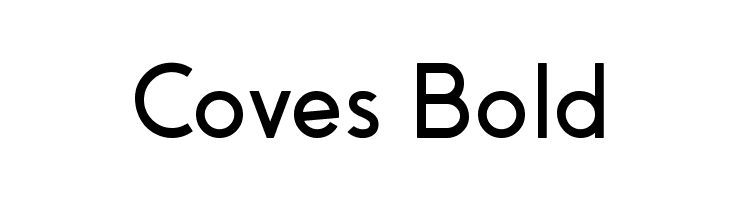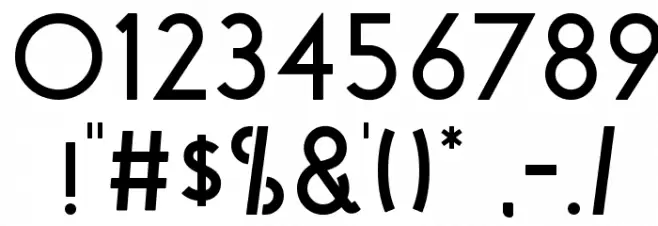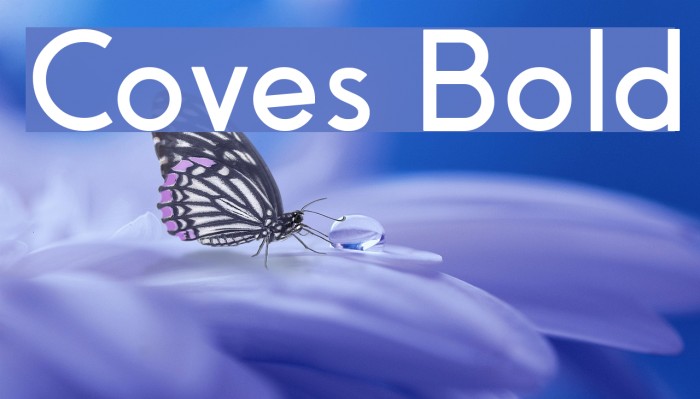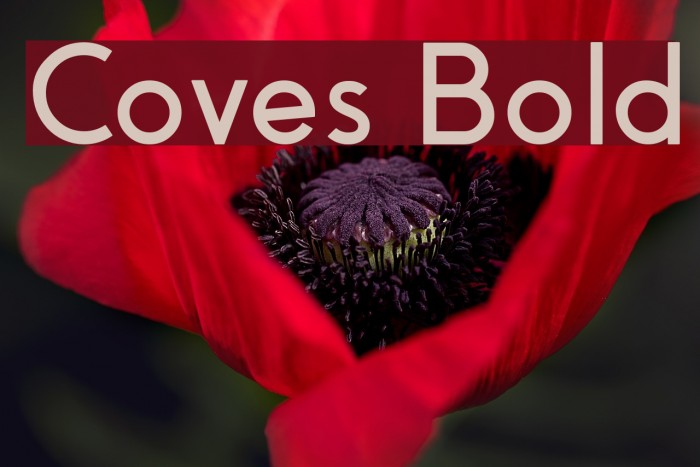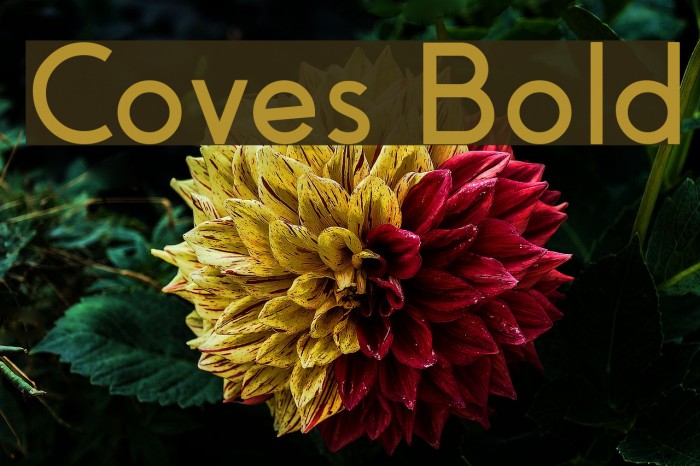
Coves Bold Font
Coves Bold Description
This font features a clean and modern sans-serif design with a bold weight. The characters are well-defined with smooth curves and straight lines, creating a harmonious and balanced appearance. The uppercase letters are slightly taller than the lowercase, providing a clear distinction between the two. The numerals are proportionate and align well with the overall style, making them easy to read. Special characters are included, maintaining the same bold and clear aesthetic. The font's simplicity and clarity make it versatile for various design applications.
A bold, modern sans-serif font with clean lines and smooth curves from Uncategorized fonts.
- Proposed Projects: Ideal for branding, headlines, posters, and digital content where clarity and modernity are key.